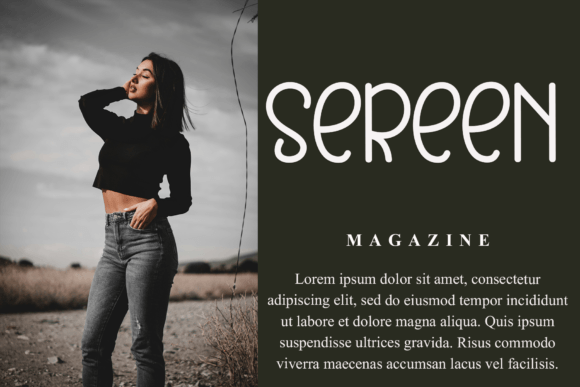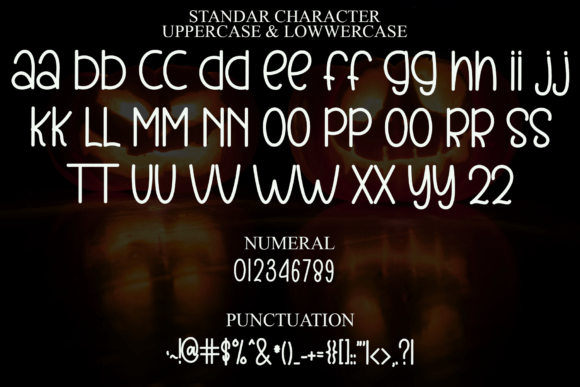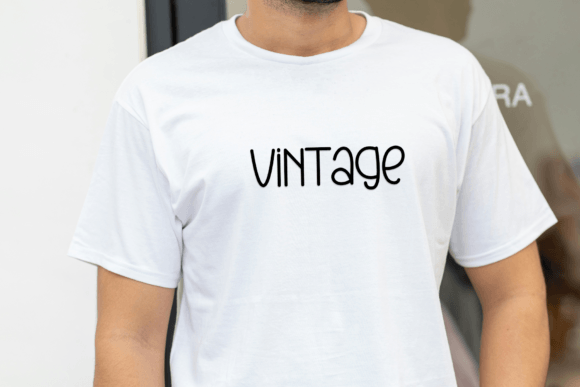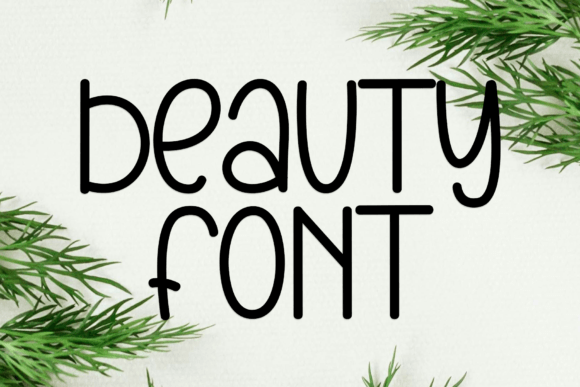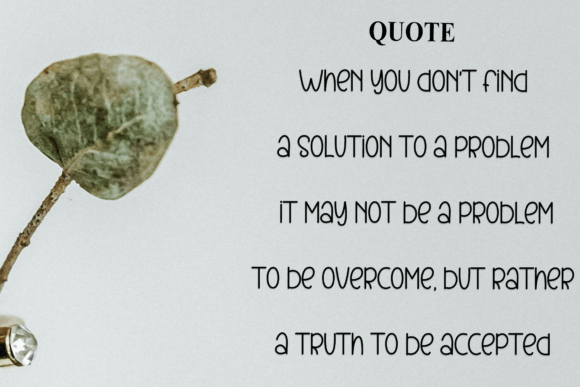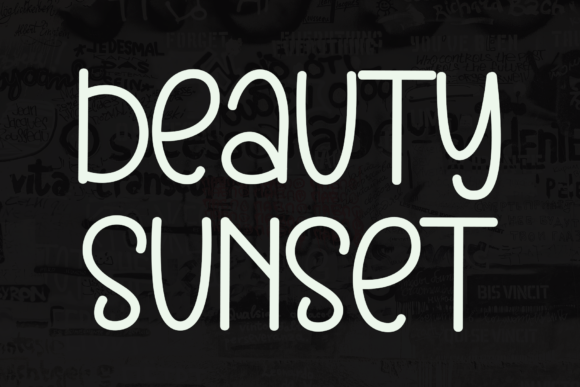
Unlocking the Power of Creative Typography: Elevate Your Designs with Elegance and Charm
When it comes to creating visually stunning designs, typography plays a vital role in conveying the message and setting the tone. Among the numerous font styles available, Creative Typography stands out as a stylish and elegant choice, perfect for designers and crafters looking to add a personal touch to their work. In this article, we’ll dive into the world of Creative Typography, exploring its unique features, and how it can elevate your designs to the next level.
Introducing Creative Typography Font
Creative Typography is a beautifully crafted font that exudes elegance and charm. Its fluid strokes and natural flow create a captivating, sophisticated look that’s sure to grab attention. This font is designed to bring a sense of warmth and creativity to any design, making it perfect for a wide range of applications, from invitations and branding to social media and more.
Key Features of Creative Typography
- Fluid Strokes: The font’s fluid strokes give it a smooth, organic feel that’s both elegant and refined.
- Natural Flow: The natural flow of the font creates a sense of movement and energy, making it perfect for designs that require a dynamic touch.
- Elegant and Charming: The font’s elegant and charming appearance makes it suitable for a wide range of designs, from formal invitations to social media posts.
- Versatile: Creative Typography is a versatile font that can be used in various design contexts, including print and digital media.
Creative Typography is an excellent choice for designers and crafters looking to add a personal touch to their work. Whether you’re creating wedding invitations, branding materials, or social media graphics, this font is sure to impress. Its unique features and elegant appearance make it an excellent addition to any design.
Use Cases for Creative Typography
- Invitations: Use Creative Typography to create stunning wedding invitations, birthday cards, or any other type of invitation that requires a touch of elegance.
- Branding: This font is perfect for branding materials, such as logos, business cards, or letterheads, where a sophisticated look is essential.
- Social Media: Add a touch of creativity to your social media posts with Creative Typography, making your content stand out in a crowded feed.
- Packaging: Use this font to create eye-catching packaging designs that reflect your brand’s personality and style.
Tips for Using Creative Typography
- Experiment with Sizes: Play with different font sizes to create visual hierarchy and emphasize important information.
- Mix and Match: Combine Creative Typography with other fonts to create a unique and interesting design.
- Use Colors: Experiment with different colors to add an extra layer of depth and personality to your design.
- Keep it Simple: Don’t overcomplicate your design – let the font speak for itself and keep your design clean and simple.
Creative Typography is a stylish font that can elevate your designs to new heights. Its fluid strokes, natural flow, and elegant appearance make it perfect for designers and crafters looking to add a personal touch to their work. With its versatility and range of use cases, this font is sure to become a staple in your design toolkit. So why not give Creative Typography a try and experience the power of elegant typography for yourself?